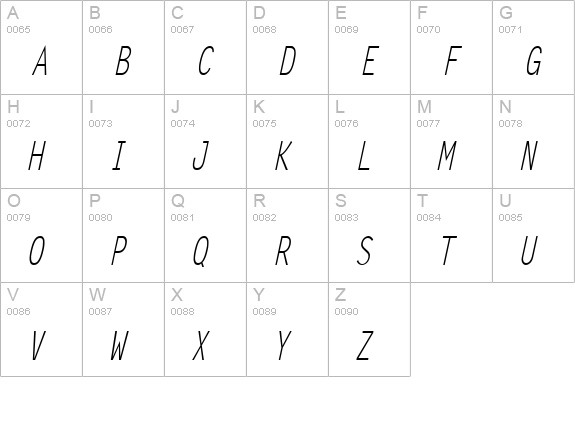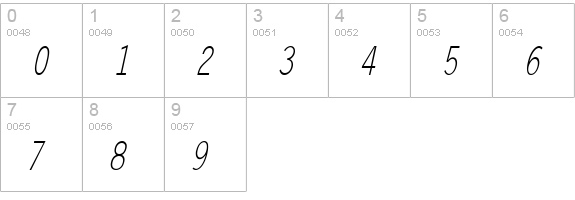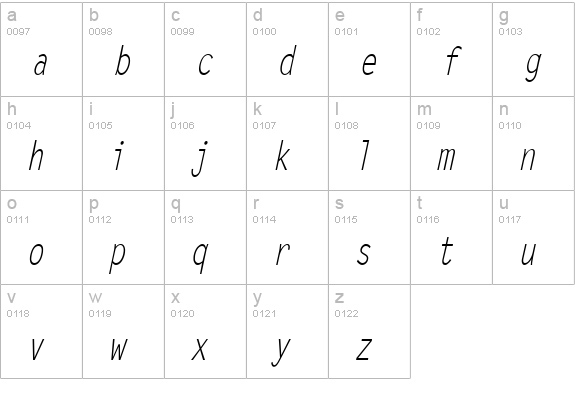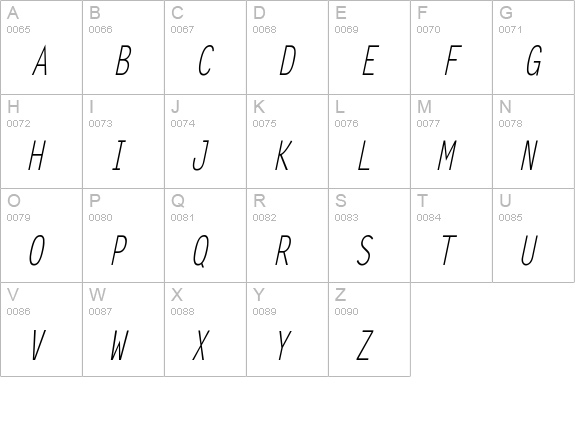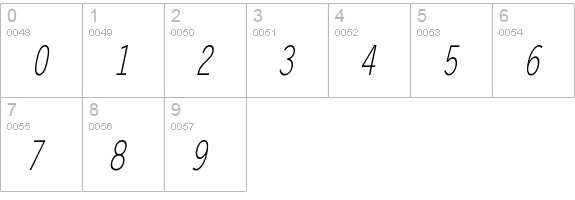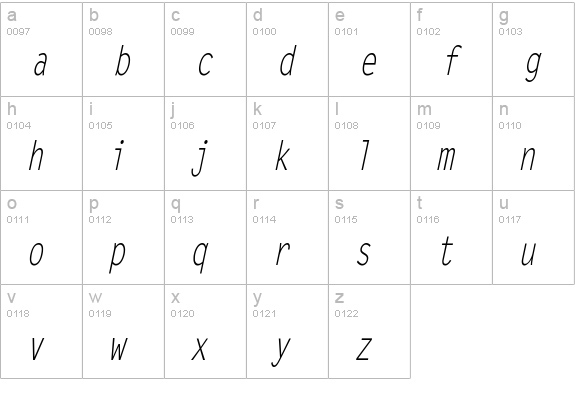
Lechter Condensed Italic is a distinctive, condensed-width, italic variant in the Lechter typeface family \xE2\x80\x94 well suited to design and typography projects.
Lechter Condensed Italic font is a stunning and versatile typeface that exudes elegance and sophistication. Its sleek and slender design adds a touch of modernity to any project, making it perfect for a wide range of applications. With its slanted and italicized letterforms, Lechter Condensed Italic font brings a sense of dynamic movement and energy to your designs. Its condensed proportions allow for efficient use of space, making it an excellent choice for headlines, subheadings, and any text that needs to stand out. This font possesses a unique combination of grace and strength, making it ideal for projects that require a balance between professionalism and creativity. Whether you are designing a logo, creating a magazine layout, or crafting a stylish website, Lechter Condensed Italic font will add a touch of sophistication to your work. One of the best features of Lechter Condensed Italic font is that it is freely available to download at FontsMarket.com. This means that you can easily access and use this beautiful font in your projects without any cost. This generosity allows designers and creatives to explore their creativity without any limitations. So, if you are looking for a font that combines elegance, versatility, and the added bonus of being free, look no further than Lechter Condensed Italic font. Download it now from FontsMarket.com and elevate your designs to a whole new level of sophistication.